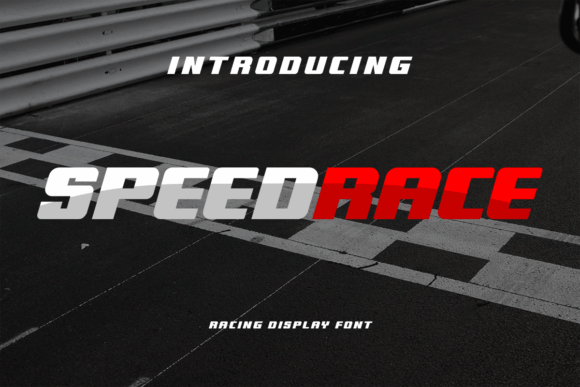
In a world saturated with ordinary fonts, let Speedrace ignite your designs with its exhilarating energy, inspired by the adrenaline rush of speed, the thrill of the race, and the captivating allure of science fiction battle scenes. This display font emanates a cool and captivating aura, perfectly suited for headlines that demand attention and designs that yearn for individuality.
Speedrace isn't just a font; it's an experience, an embodiment of modern typography that pushes boundaries and sparks imagination. This PUA-encoded font unlocks a universe of glyphs and swashes, granting you the freedom to explore endless creative possibilities. Unleash your vision and transform ordinary designs into captivating masterpieces with Speedrace, the font that knows no limits.
With Speedrace, your headlines will race off the page, capturing attention and leaving an indelible mark on your audience. Its unique style effortlessly blends the sleekness of modernity with the nostalgia of retro gaming, creating a timeless aesthetic that resonates with audiences of all ages. Whether you're crafting designs for websites, posters, or social media, Speedrace is your ultimate weapon, ready to elevate your creations to new heights of visual excellence.
Join the ranks of creative visionaries who have discovered the power of Speedrace, the font that defies convention and ignites imaginations. Its versatility knows no bounds, adapting seamlessly to a myriad of design styles and themes. From bold and edgy street art to sleek and sophisticated corporate presentations, Speedrace possesses the chameleon-like ability to transform itself, becoming an integral part of your creative vision.
Elevate your designs to the next level with Speedrace, the display font that embodies speed, race, and science fiction battle scenes. Let your creativity run wild as you explore the infinite possibilities this font offers. The only limit is your imagination, so unleash it and witness the transformation of your designs into extraordinary works of art.